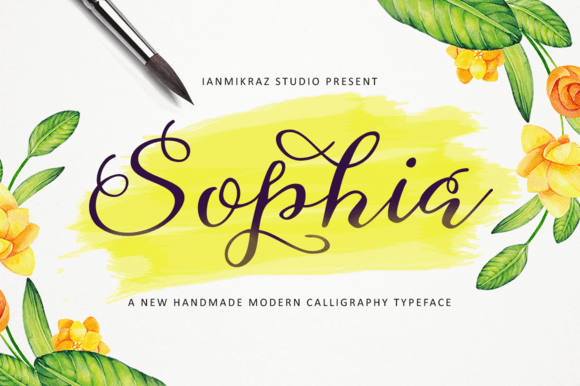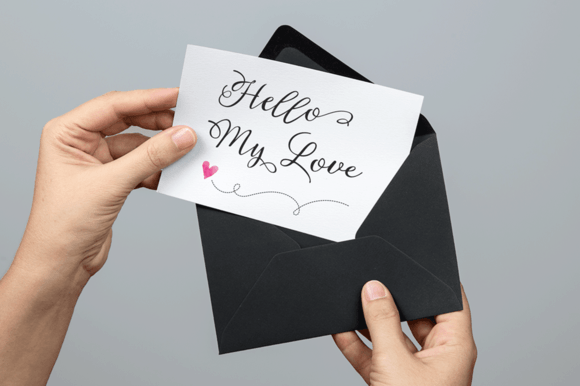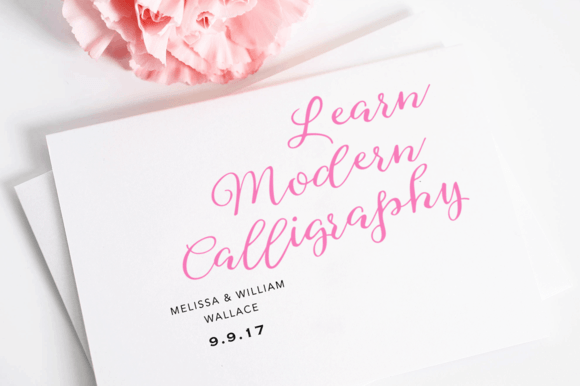
Sophia Font
About Sophia Font
Sophia is a loopy and friendly script font, perfect for summery and airy designs. This font is ideal in headlines and logotype and can give a certain je ne sais quoi to your designs.